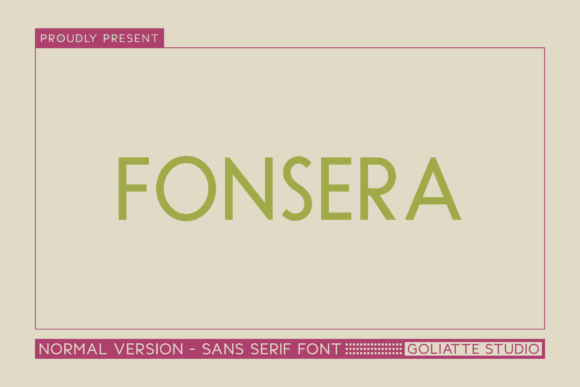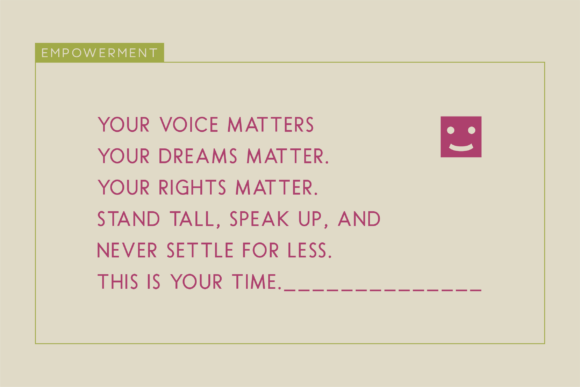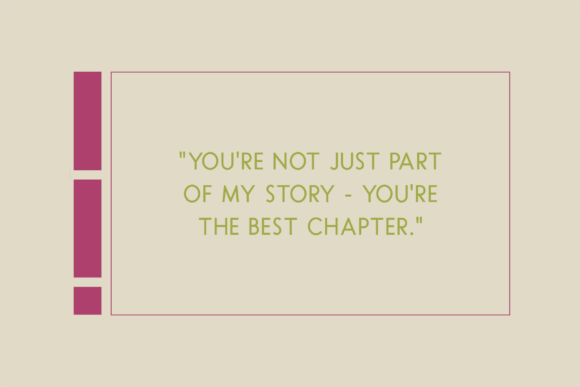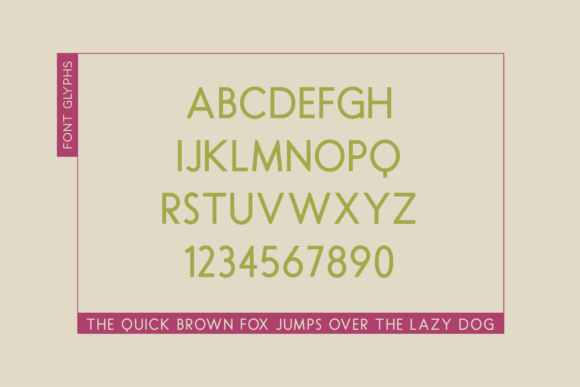
Fonsera Font: Bold Sans Serif Typography for Modern Logo Design
About the Fonsera Font
Add a touch of class to your work with the Fonsera Font, a truly exceptional typeface. Introducing Fonsera – A Modern Sans Serif Typeface
Fonsera is a bold, all-caps sans serif font designed for the modern designer. With its clean lines and minimalist aesthetic, this typeface exudes strength and authority. It is perfect for projects that require a sense of professionalism and impact. Whether you’re designing a logo, website, or print material, Fonsera makes a statement with its sharp, crisp edges.
The strong, geometric structure of Fonsera ensures versatility, from digital interfaces to high-end branding. The all-caps design emphasizes clarity and readability, making it ideal for headlines, posters, and anywhere you need your message to stand out.
Features:
All-caps design for maximum impact
Modern, minimalist style with a focus on readability
Bold, clean lines for a confident and professional look
Ideal for branding, logos, packaging, and digital design
Perfect for both large-scale headlines and smaller text blocks
Fonsera is perfect for brands, agencies, and designers looking to create a modern, authoritative identity. It’s especially suitable for tech companies, corporate branding, and luxury design projects where style and readability are paramount.
Stand out with Fonsera – a typeface built to make an impression.
Fonsera Font Usage Examples
Fonsera Font Example